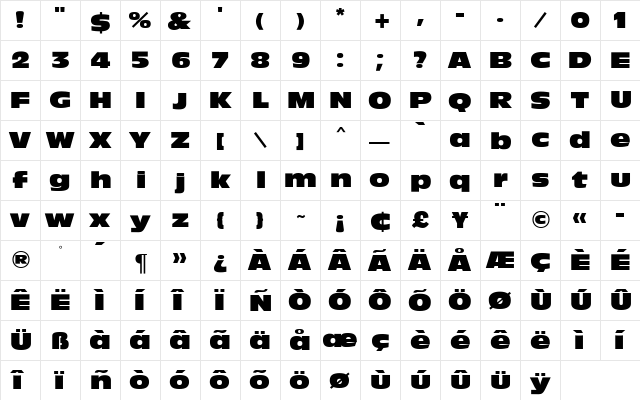
Olive Nord MN Regular Font Preview
Olive Nord MN Regular
Olive Nord MN Regular Font Details
| Foundry | Mecanorma International . \ |
Design Context for Olive Nord MN Typeface
Olive Nord MN offers clean, dependable letterforms without strong stylistic allegiance, making it a practical choice for designers who need flexibility.